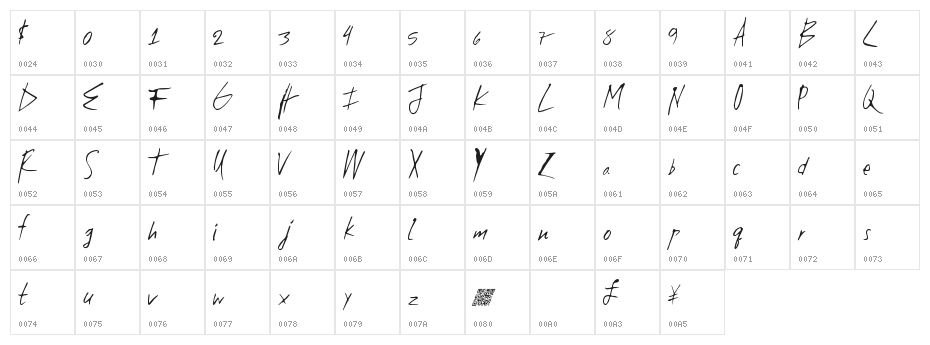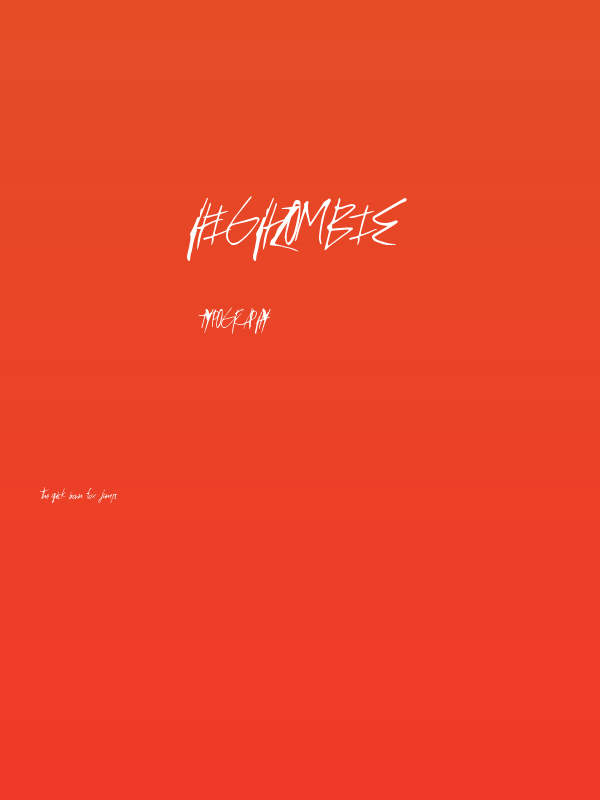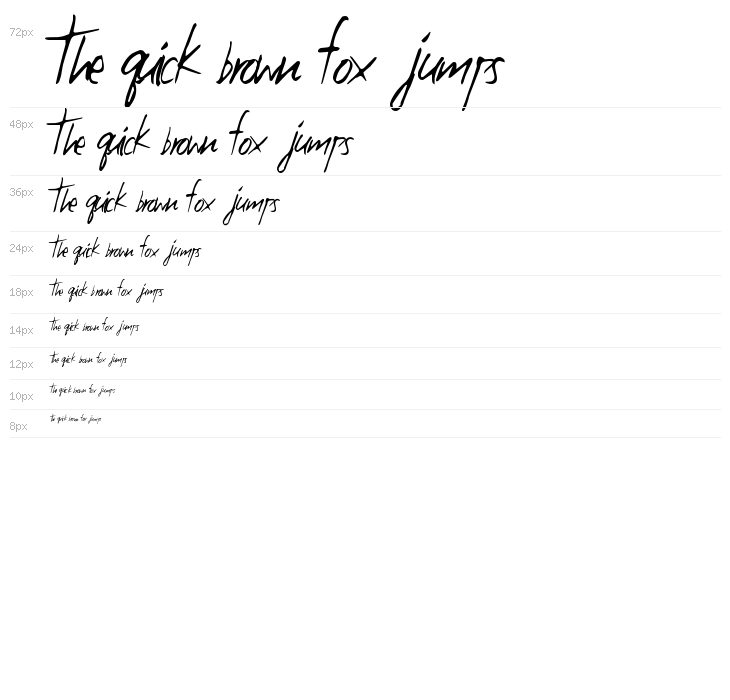
HighZombie Font
HighZombie Description
This font exhibits a dynamic and edgy style, characterized by its sharp, angular strokes and irregular baseline. The uppercase letters are bold and dramatic, with exaggerated ascenders and descenders that give a sense of movement and energy. The lowercase letters maintain a similar aesthetic, though they are slightly more restrained, providing a balance to the overall design. The numbers and special characters continue this theme, ensuring consistency across all glyphs. The font's handwritten appearance suggests a sense of urgency and rawness, making it ideal for projects that require a bold, impactful statement.
| Proposed Projects | Ideal for album covers, movie posters, graffiti art, or any project needing a bold, rebellious aesthetic. |